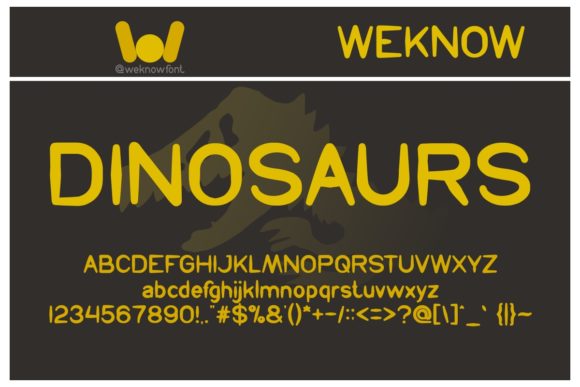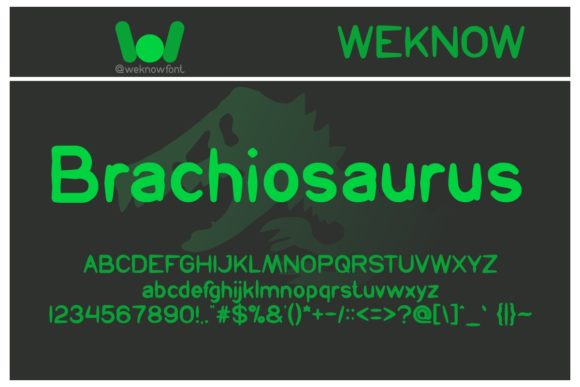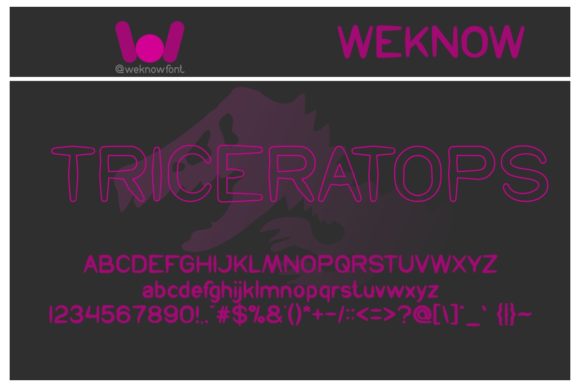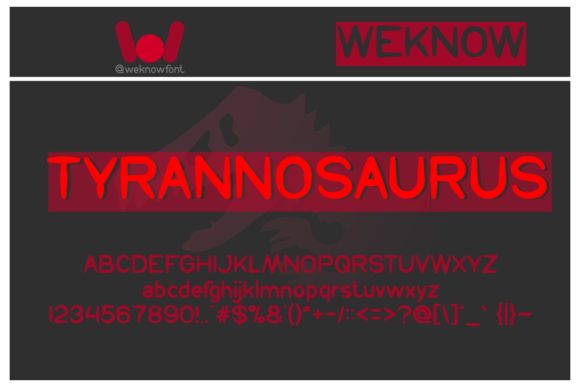
Introduction to Prehistoric Font
Prehistoric is a clean and simple lettered display font.
Why Choose Prehistoric Font?
Prehistoric Font offers exceptional quality and versatility, making it a valuable addition to your design toolkit. Whether you’re creating for personal projects or commercial use, Prehistoric Font delivers professional results.